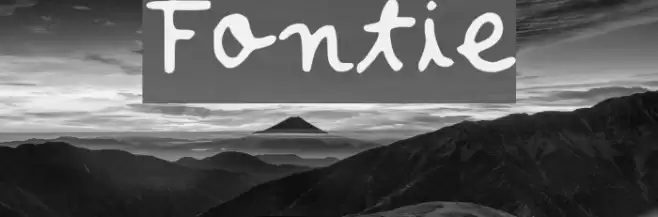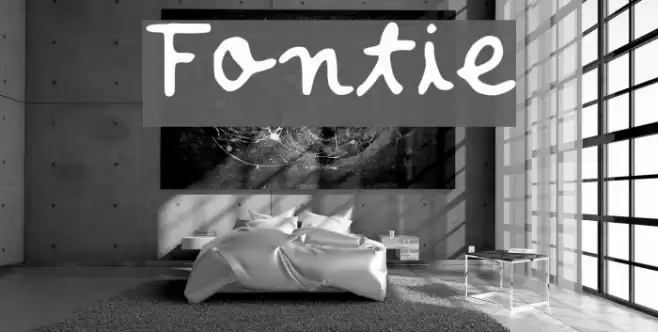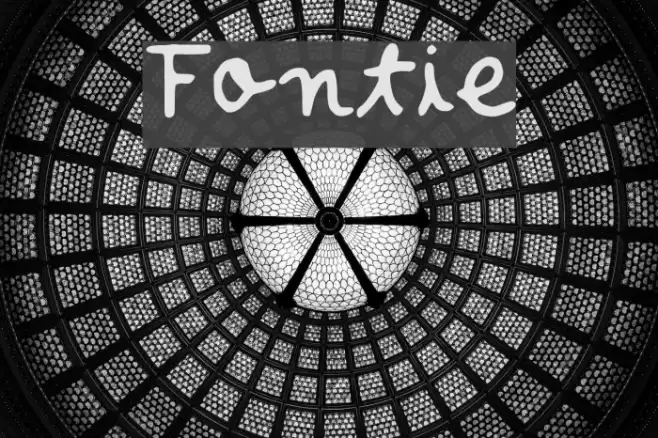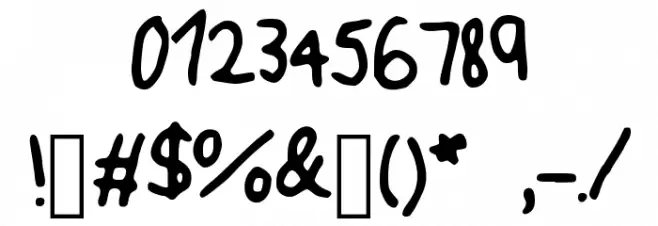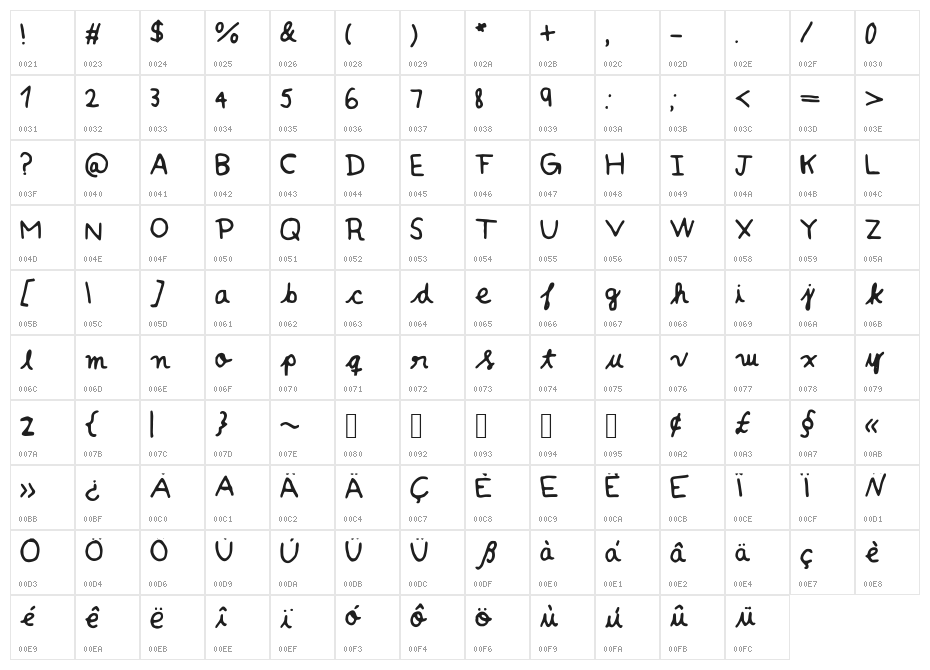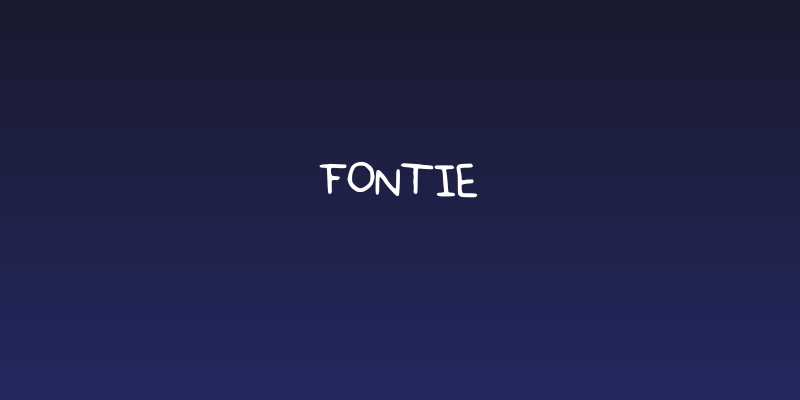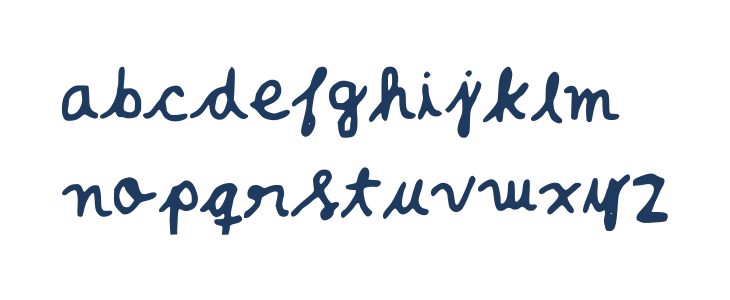
Fontie Font
Fontie Description
This font features a playful and casual handwritten style, characterized by its irregular strokes and organic flow. The uppercase letters are bold and slightly uneven, giving a sense of spontaneity and creativity. The lowercase letters maintain a consistent style, with some letters like 'g' and 'y' having distinctive loops that add to the font's charm. Numbers are clear and legible, matching the overall informal aesthetic. Special characters are creatively designed, maintaining the font's unique personality. This font is perfect for projects that require a personal touch or a relaxed, friendly vibe.
A playful, handwritten font with a casual and creative style from Handwritten fonts.
- Proposed Projects: Ideal for greeting cards, invitations, children's books, and creative branding.
- Overall Style: Casual, Playful
- Use Case: Headlines, Informal text, Creative projects